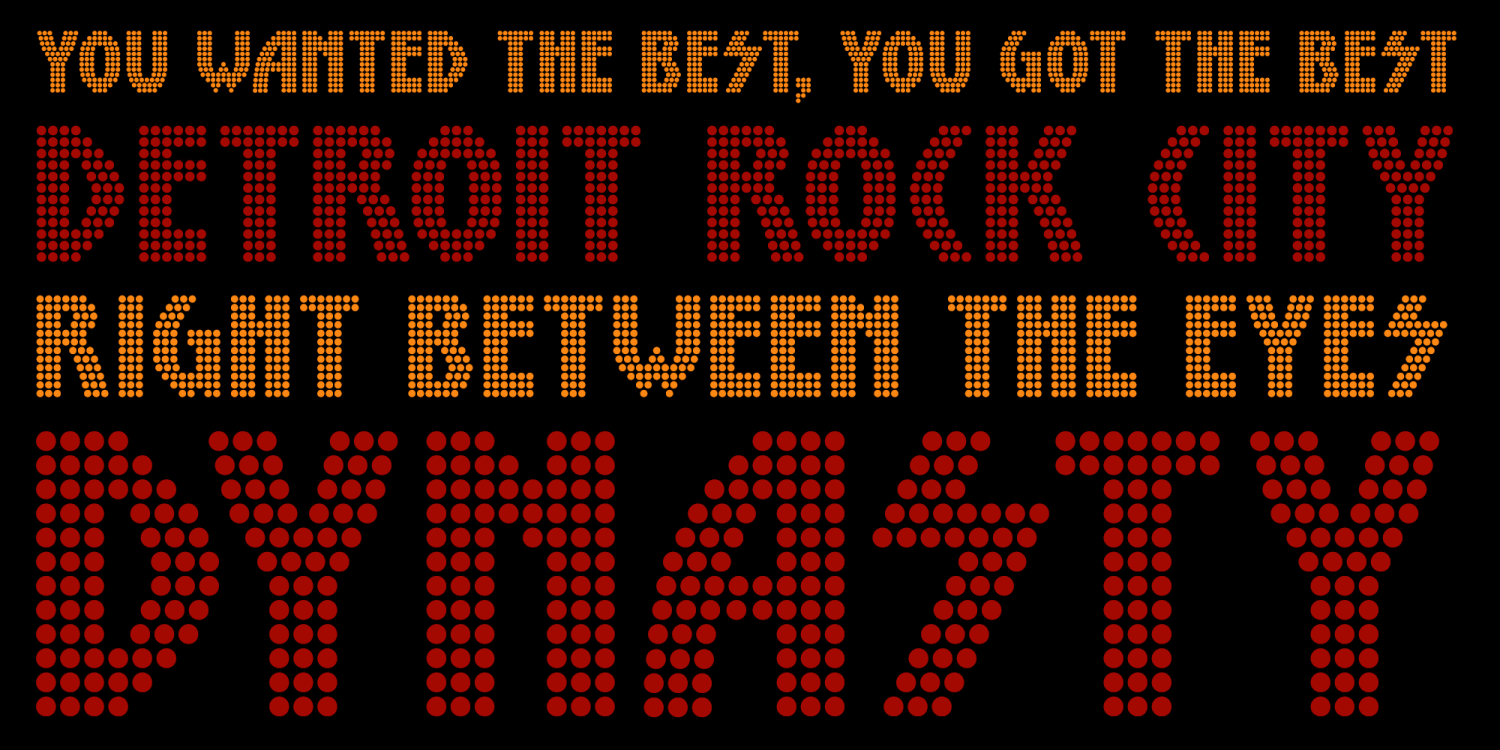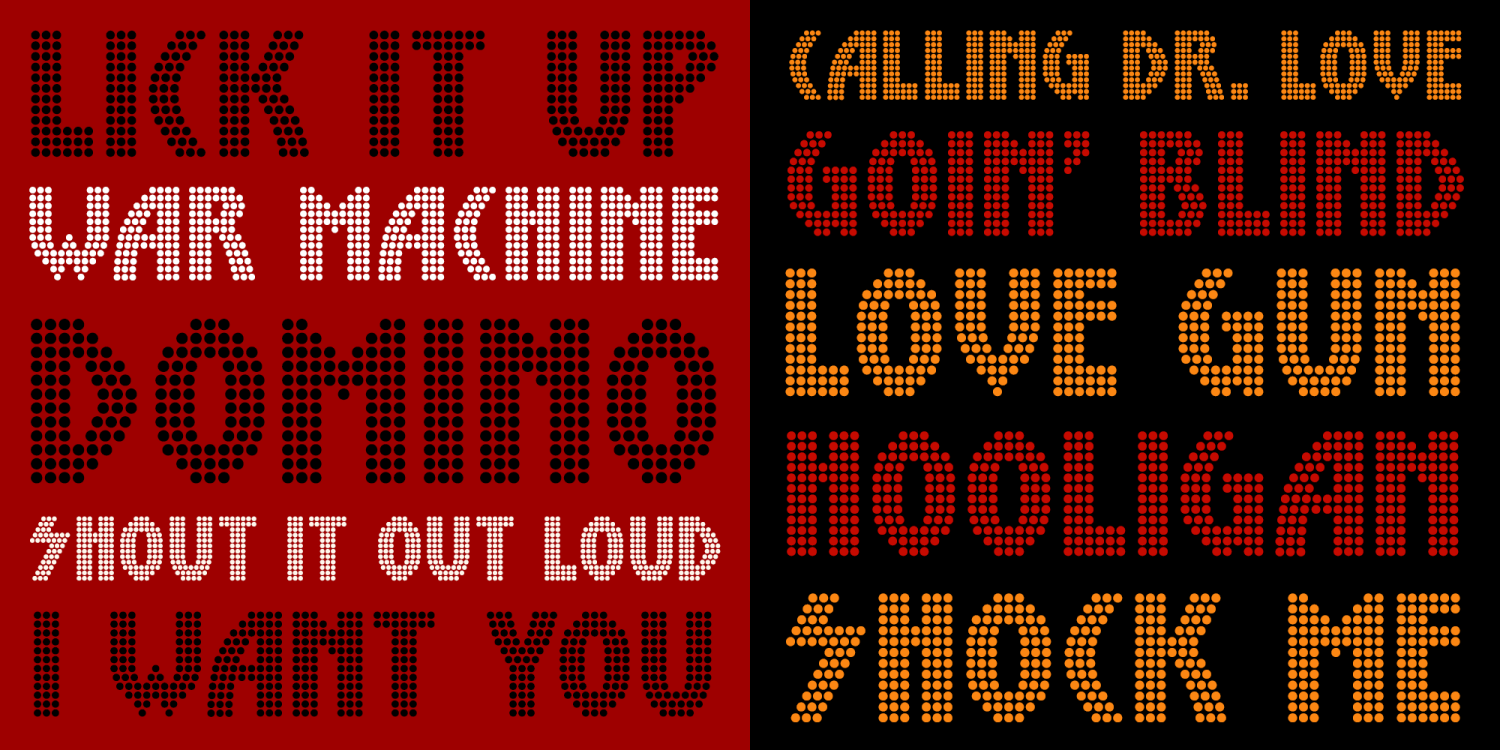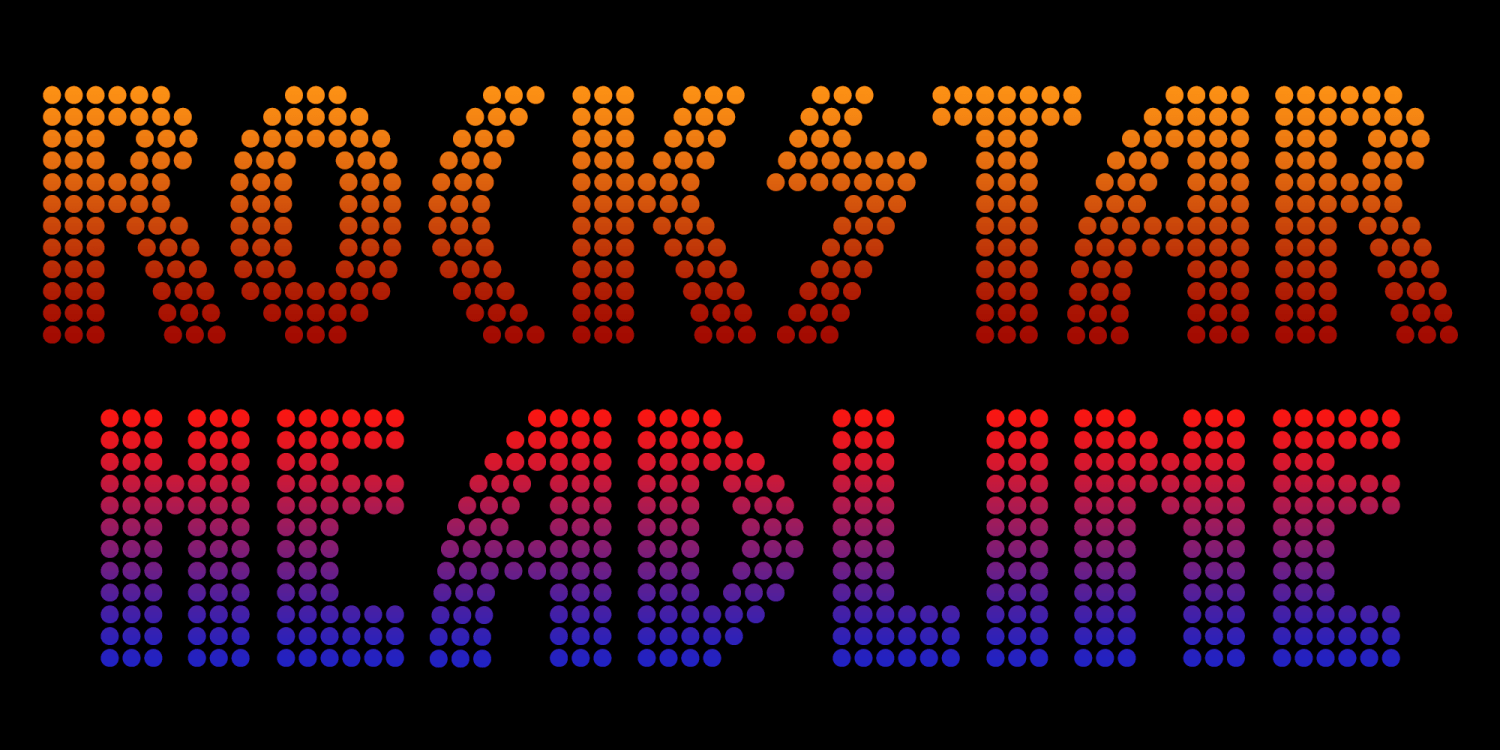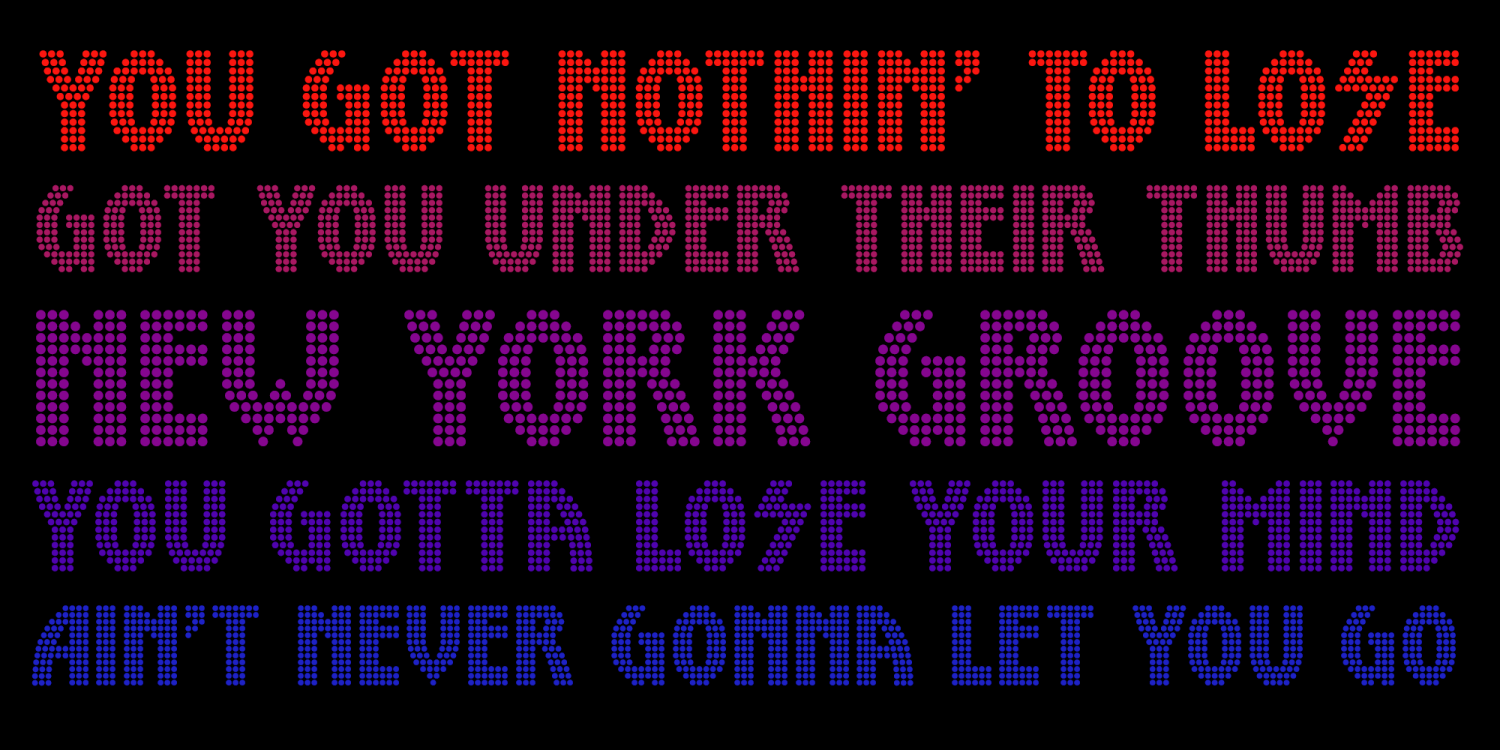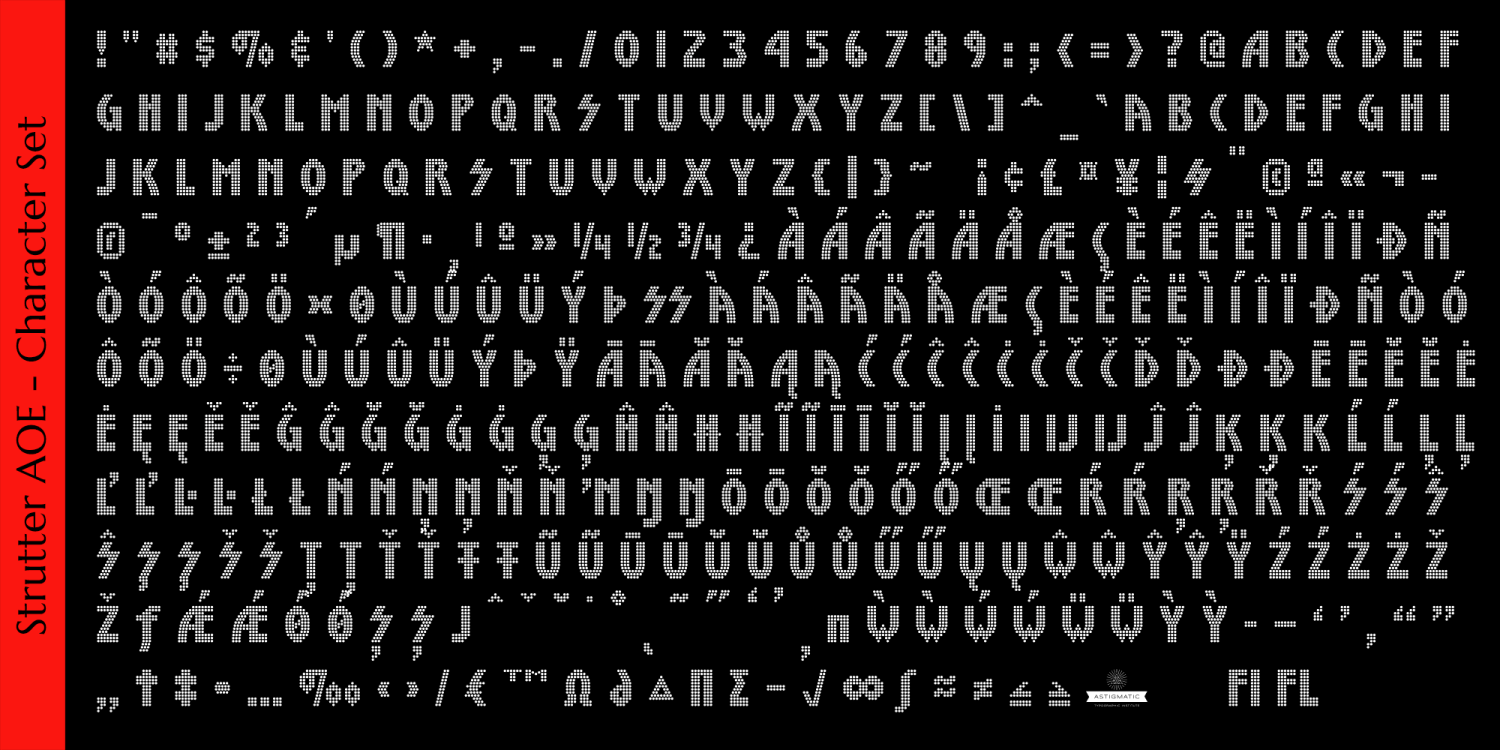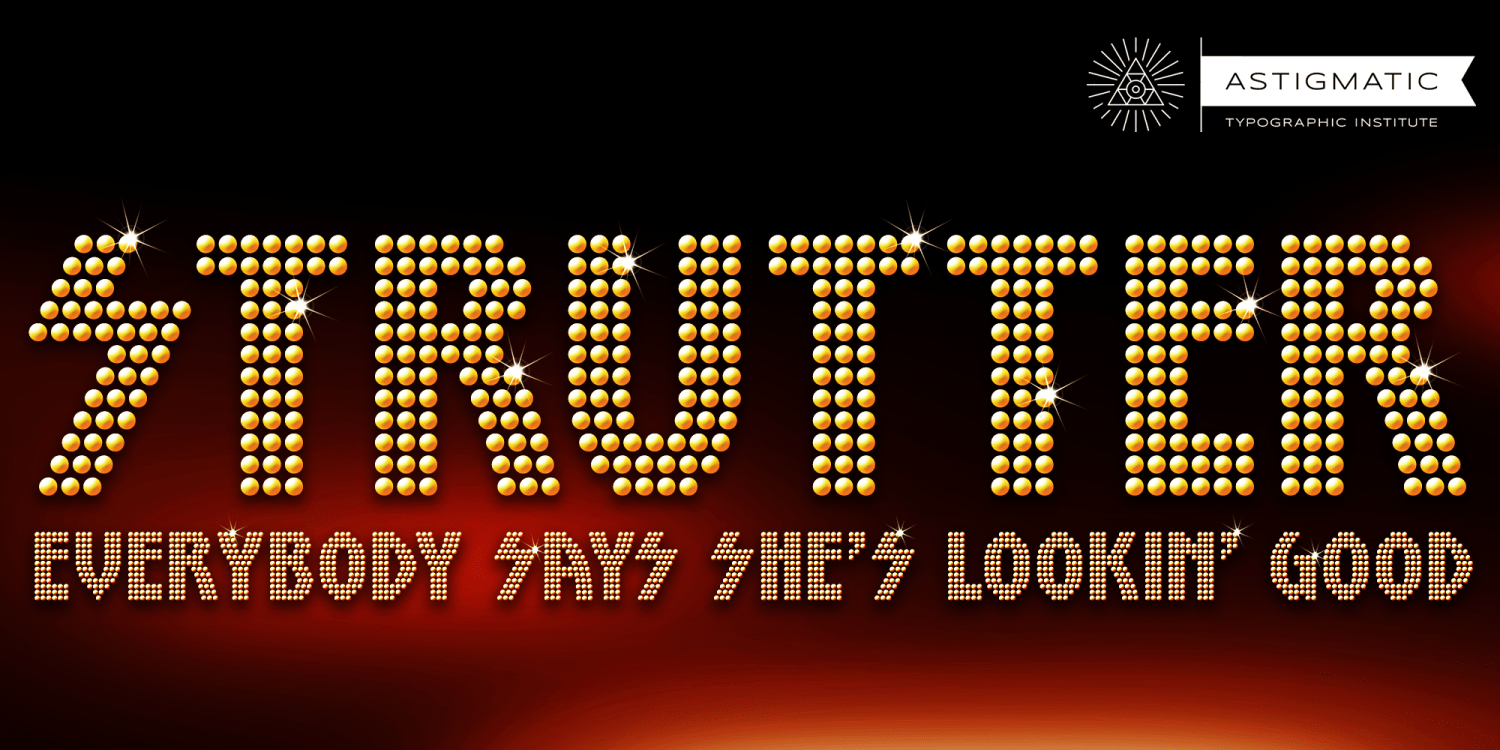
Strutter AOE Regular
About Strutter AOE Regular
As if it needed any explanation, Strutter AOE is inspired by the vintage bulb lit marquee for the iconic rockband KISS. Call it a dot matrix or a bubbledot font, but it is far from just that. It is a signature, a style, and a statement. I originally created…